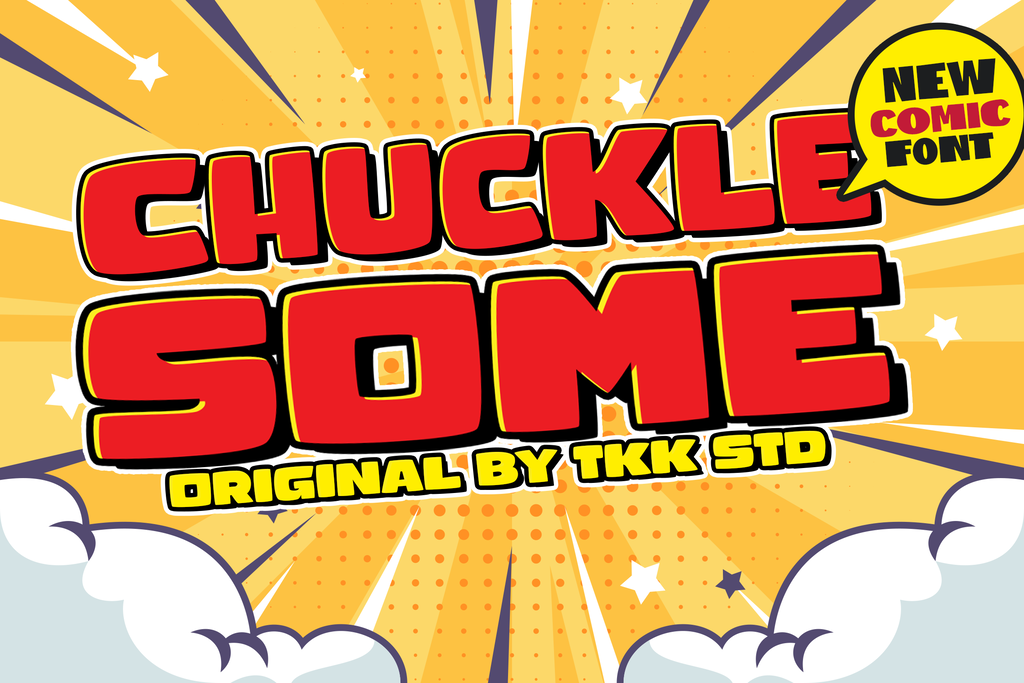
CHUCKLESOME - Comic Font
Chucklesome comic font is gonna make every word written will get attention. It is bold, heavy, stands out, but with a rounded corner and chubby shape.
Suit perfectly for Online Games, poster, movie title, fast food menu, magazine, youtube covers, youtube thumbnails, social media page covers and so on…